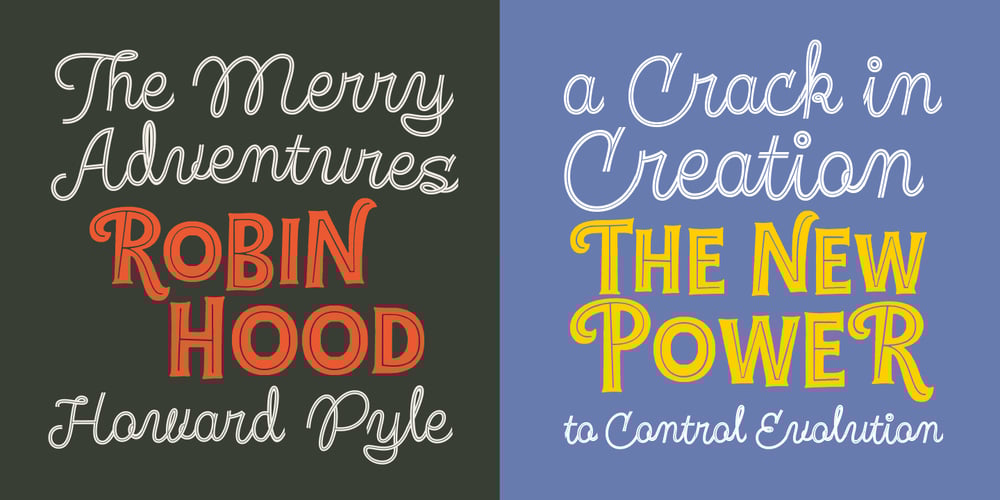
Fregata Sans Font Family was designed by Felipe Calderón and published by Estudio Calderon. Fregata Sans contains 4 styles and family package options. A modern and funny pack with 4 handmade script and sans fonts that started in the sketchbook and finished in the computer. Fregata has a unique and beatiful look to be used in many design projects as: cover books, labels, logos & branding, advertisements & product design. When you get this pack you will receive 4 font files, designed to work as perfect companions or simply as strong standalone typefaces. Fregata Script Inline: A unique style with a different look thanks to the line that connects the whole typographic system. Fregata Sans: Includes 3 handmade fonts variables (Fregata Sans 1, Fregata Sans 2, Fregata Sans 3) with small rounded serifs making it a modern and fun typography. Fregata is equipped with ligatures and all stylistic alternates, extended character set to support Central and Eastern European as well as Western European Languages. That’s it! I really hope you enjoy it, and please don’t hesitate to send us a message if you have any comments or questions. Enjoy Fregata!